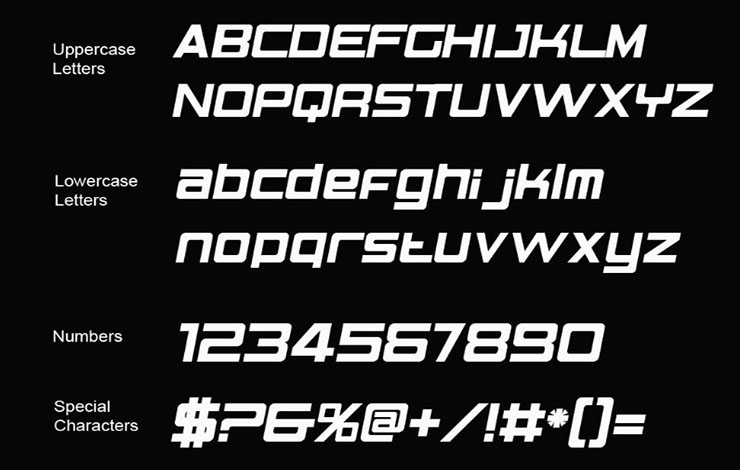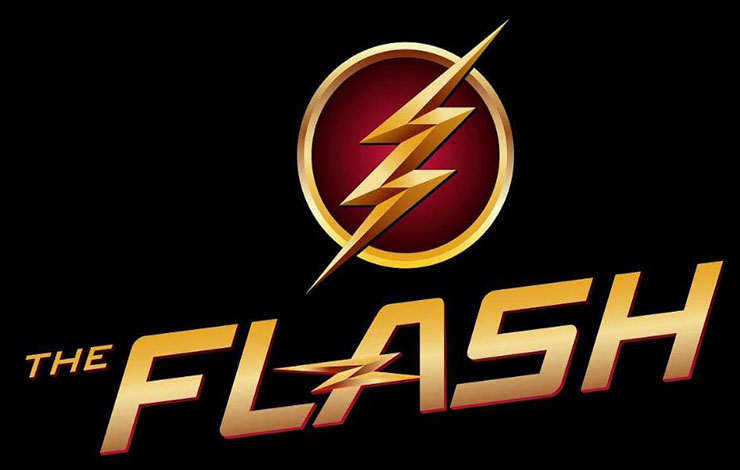
Introducing The Flash Logo Font! The Flash is a 2023 American superhero film based on the DC Comics character of the same name.
Here we are offering you a font family that looks similar to its logo font. Its name is BN Elements, a great techno font that has a magnificent fine texture.
“This font family comes in a single regular style along with Truetype features. This font includes 126 glyphs, numbers, symbols, and some punctuation marks. Moreover, it also supports 34 global languages.”
The Flash Logo Font Information
| Font Name: | The Flash Logo Font Family |
| Style: | Logo, Techno, Display |
| Font Designer: | Ben’s Fonts |
Usage
This bold display font will best work in branding, T-shirt prints, posters, headers, titles, flyers, banners, advertisements, company names, branding, product designs, gaming projects, futuristic websites, special event cards, game graphics, product designs, book covers, movie headers, display titles, product designs, and many other good things.
FAQs about The Flash Logo Font:
What is the Flash Logo Font?
Introducing The Flash Logo Font! The Flash is a 2023 American superhero film based on the DC Comics character of the same name.
Here we are offering you a font family that looks similar to its logo font. Its name is BN Elements, a great techno font that has a magnificent fine texture.